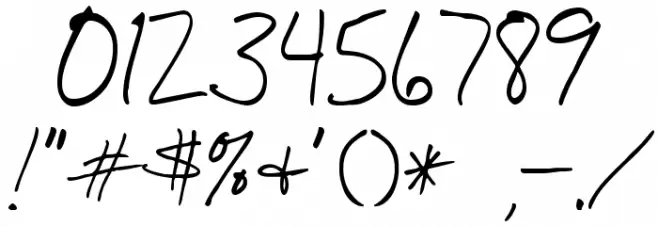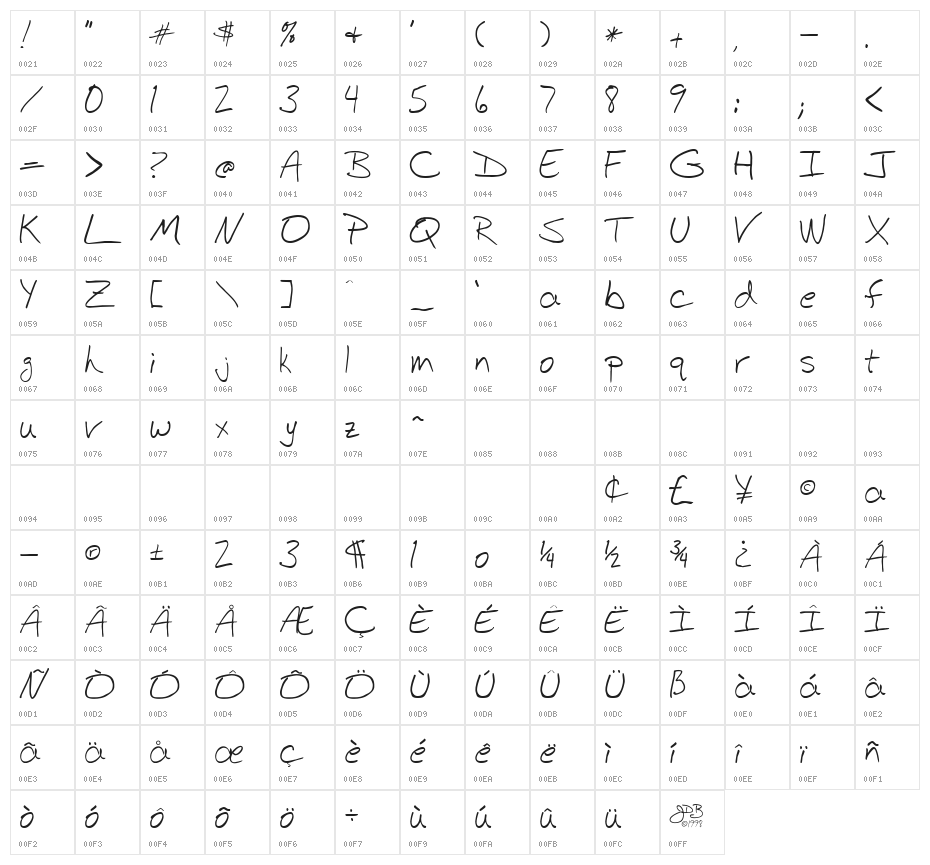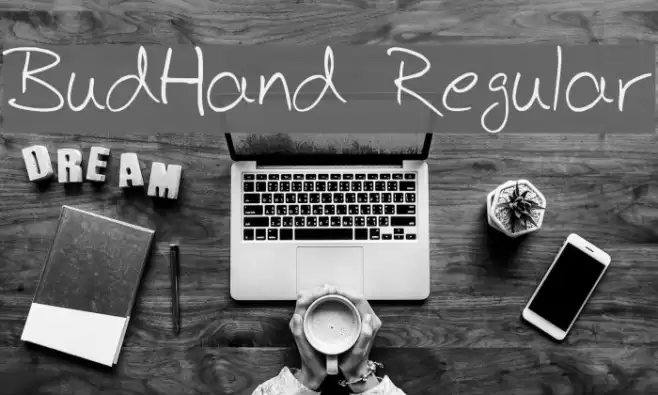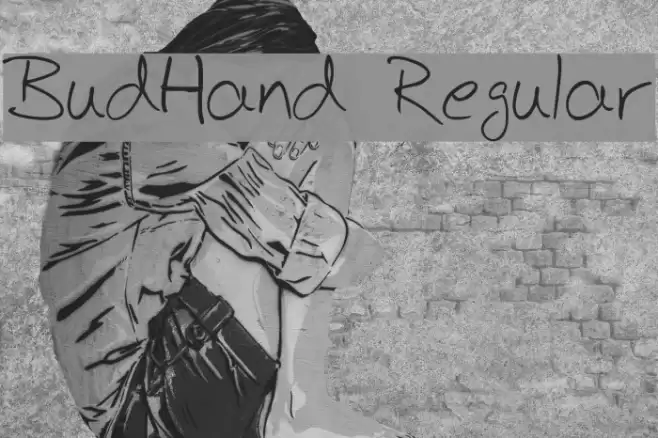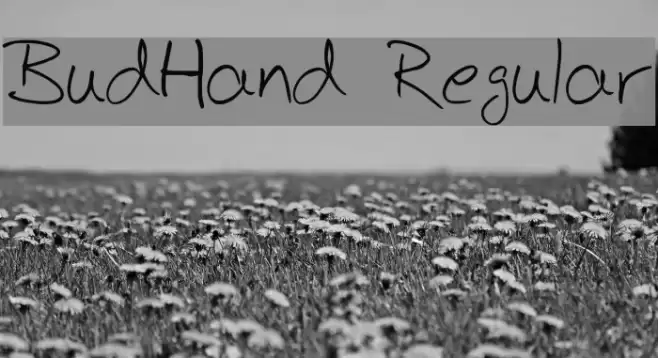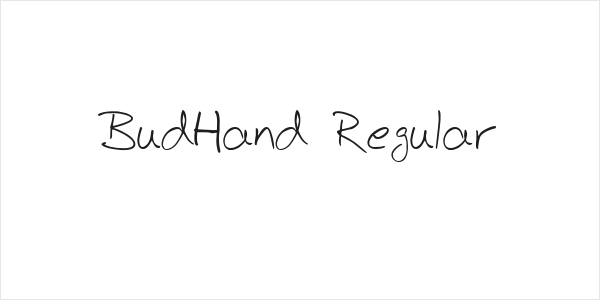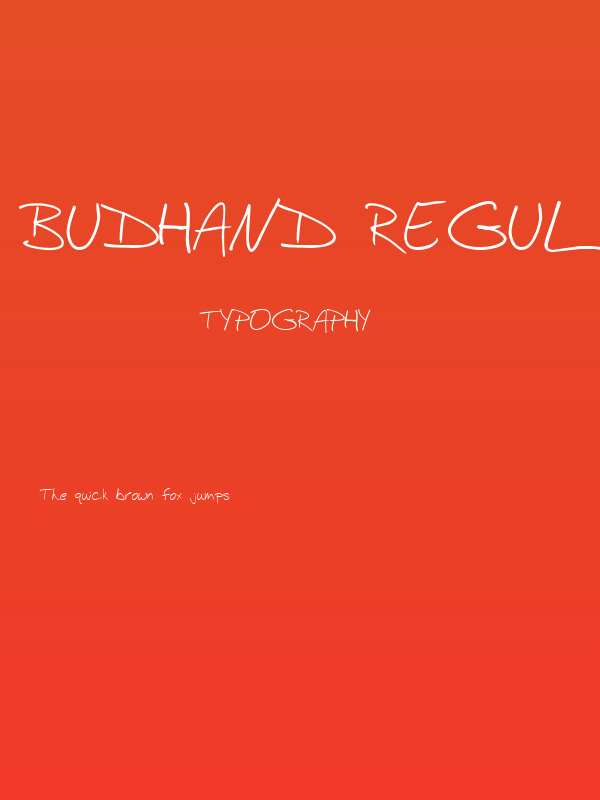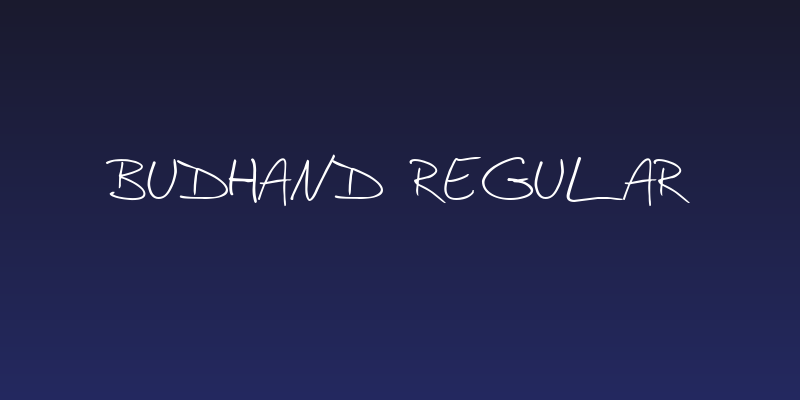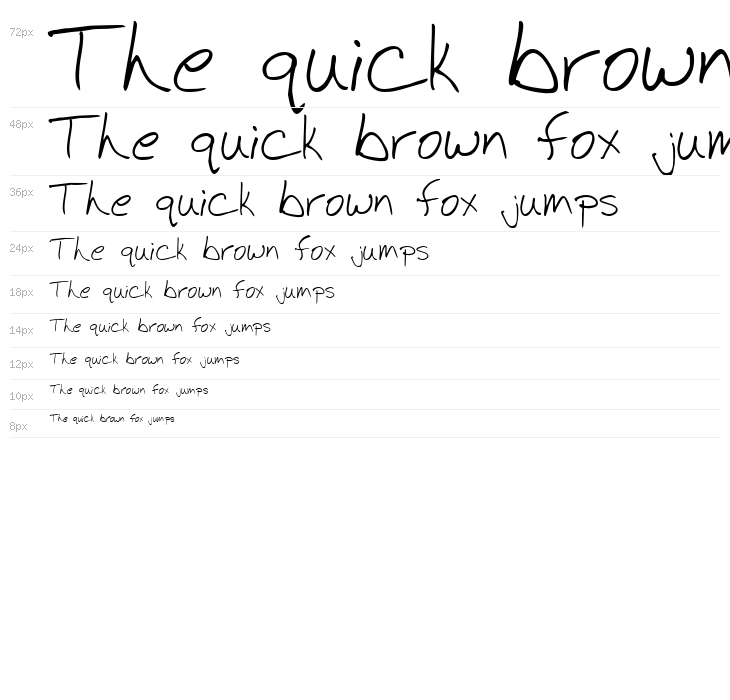
BudHand Regular Font
BudHand Regular Description
This font exudes a casual and playful handwritten style, characterized by its fluid and slightly irregular strokes. The uppercase letters maintain a consistent height with a slight slant, giving them a dynamic appearance. The lowercase letters are more varied in height, adding to the informal feel. Numbers are bold and slightly larger, ensuring readability. Special characters are creatively integrated, maintaining the overall whimsical aesthetic. The font's organic flow and personal touch make it ideal for projects that require a human element.
| Use Case | Logos, Informal Text, Creative Projects |
| Proposed Projects | Ideal for greeting cards, personal notes, informal invitations, and creative branding projects. |